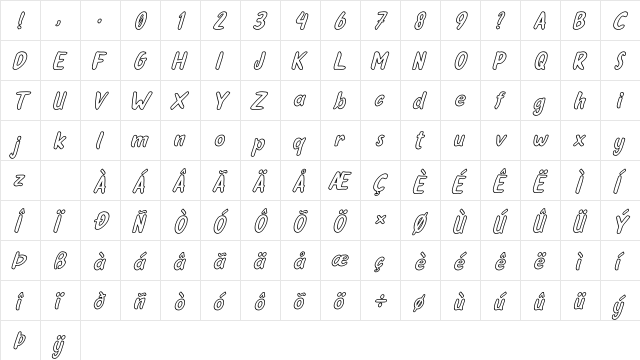
Oleander Cakes Outline Italic Regular
| Foundry | Marchtwentype Studio |
| Designer | E. Nurcahyo |
Design Context for Oleander Cakes Outline Italic Typeface
Oleander Cakes Outline Italic is built around its visual character rather than neutral utility — its distinctive forms are designed to make an impression at display sizes. The dynamic lean of this cut emphasises speed and emphasis in any layout.
Font Pairing: Pair with a clean neutral sans-serif for body copy to let Oleander Cakes Outline Italic's character lead without overwhelming the composition.
Pro Tip: Treat Oleander Cakes Outline Italic as the centrepiece of your typographic hierarchy. One strong heading set in a decorative face can carry an entire layout.